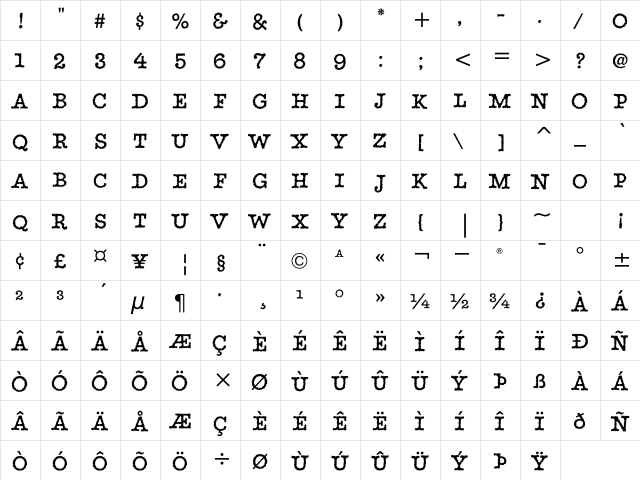
StaticITC TT Regular
Design Context for StaticITC TT Typeface
StaticITC TT is a composed and adaptable typeface that performs quietly and consistently across a wide range of design contexts.